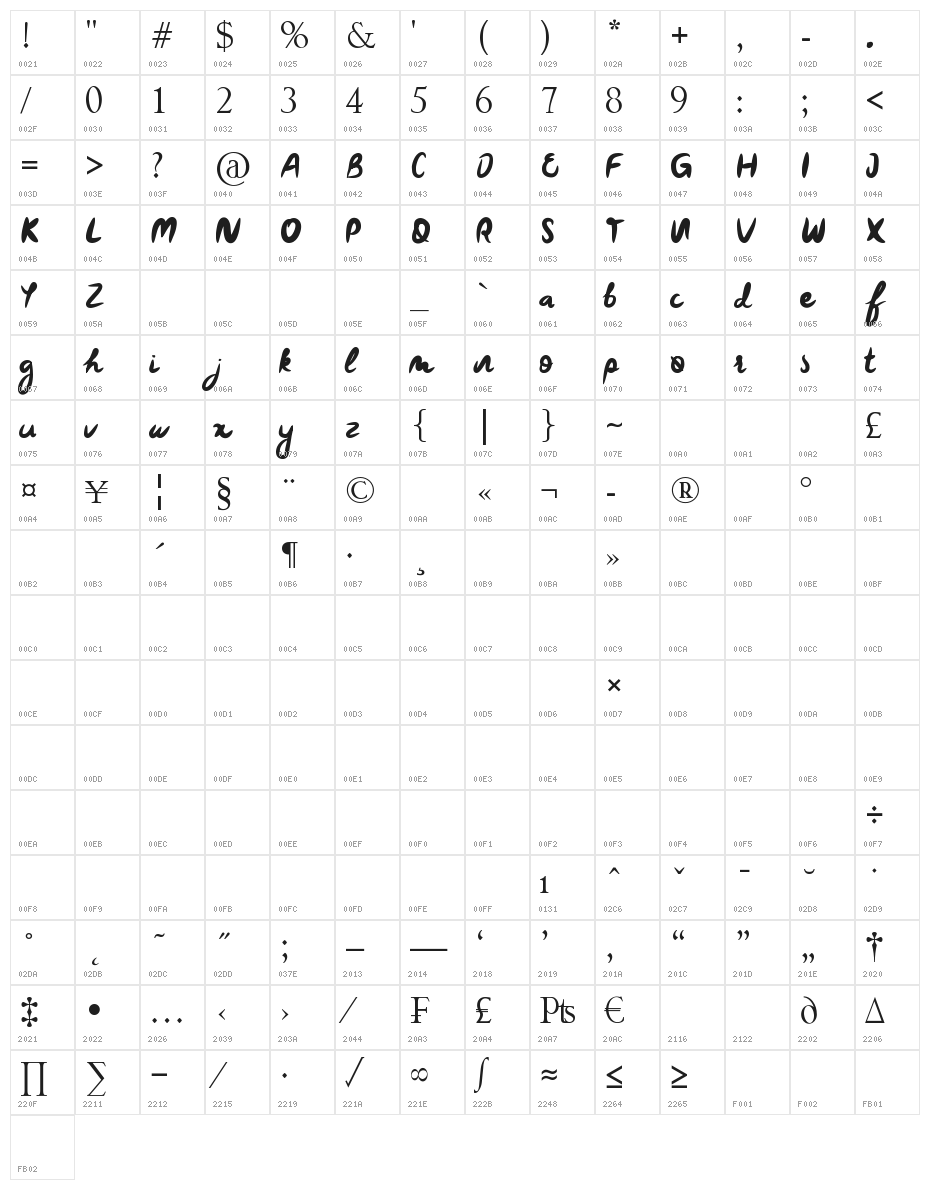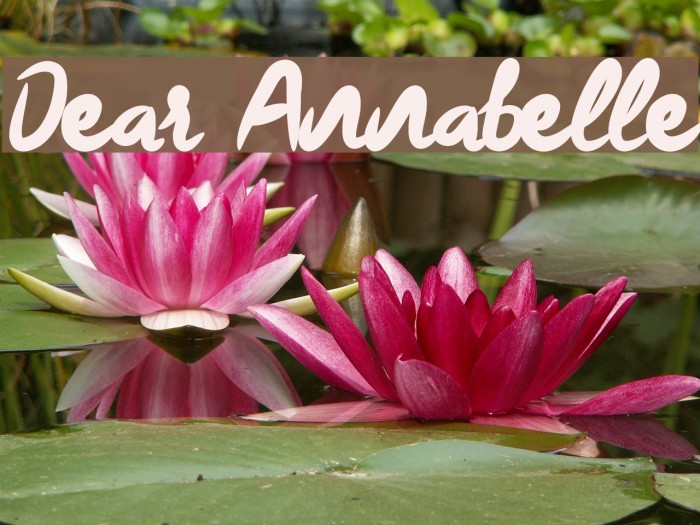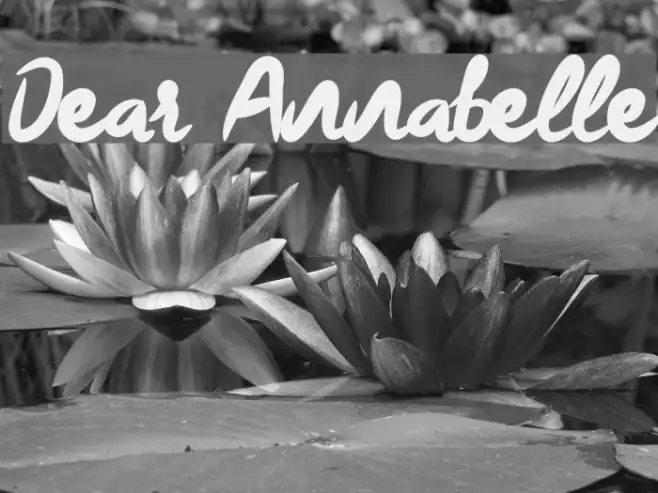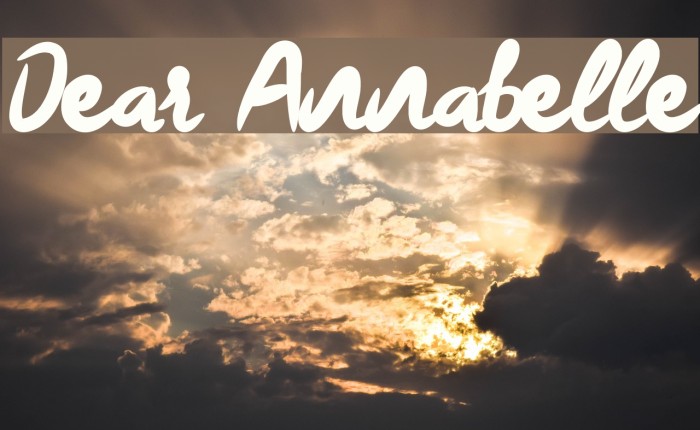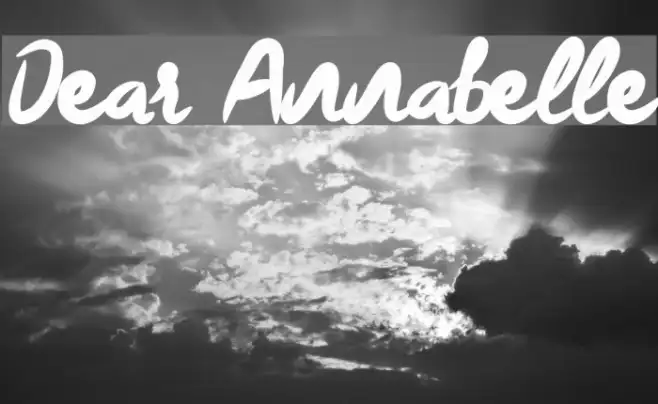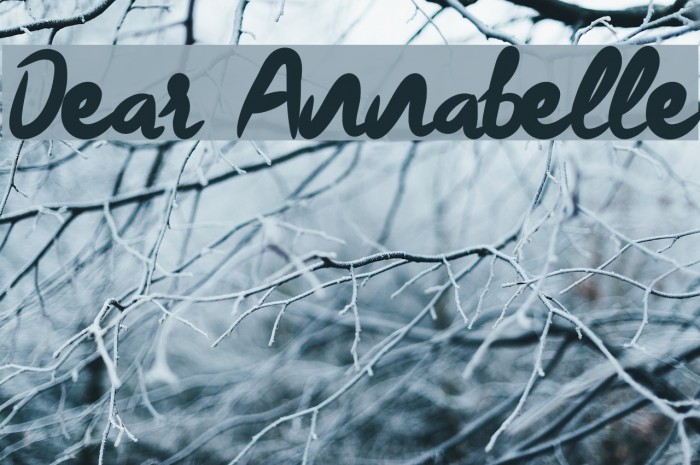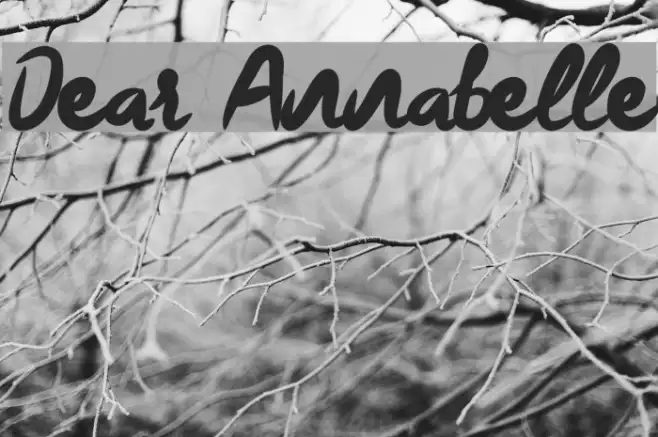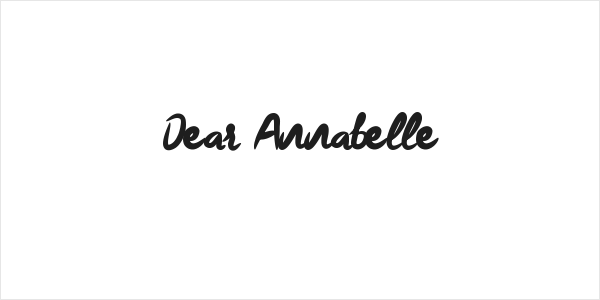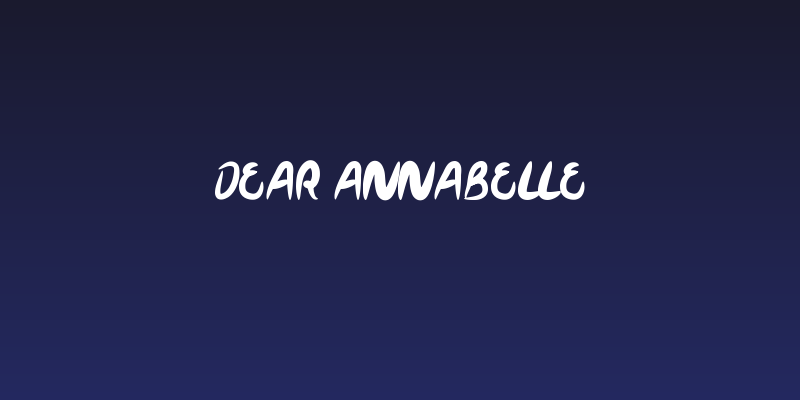
Dear Annabelle Font
Dear Annabelle Description
This font features a lively and expressive handwritten style, characterized by its fluid and dynamic strokes. The uppercase letters are bold and slightly slanted, giving a sense of movement and energy. The lowercase letters maintain a consistent flow, with some letters connecting seamlessly, enhancing the cursive feel. Numbers are clear and legible, matching the overall playful aesthetic. Special characters are well-integrated, maintaining the font's cohesive style. The font's design is suitable for projects that require a personal touch, such as invitations, greeting cards, and branding materials.
| Proposed Projects | Ideal for invitations, greeting cards, personal branding, and creative projects. |